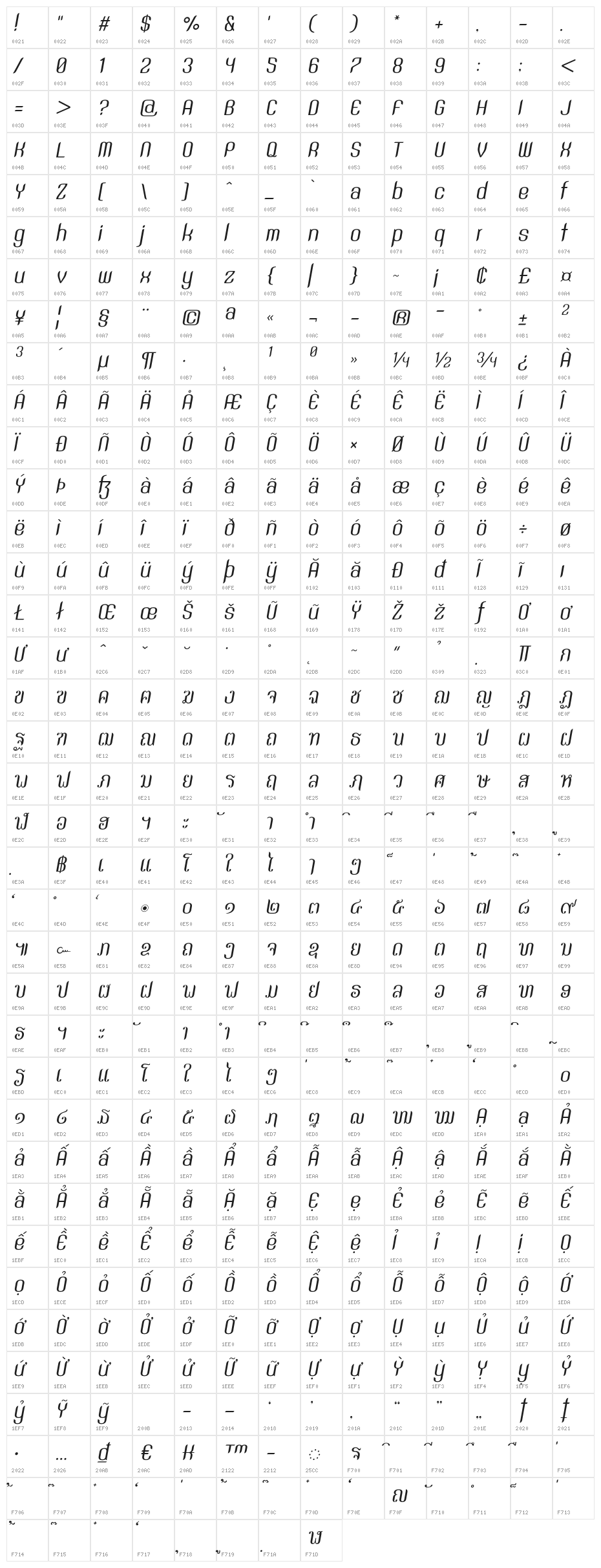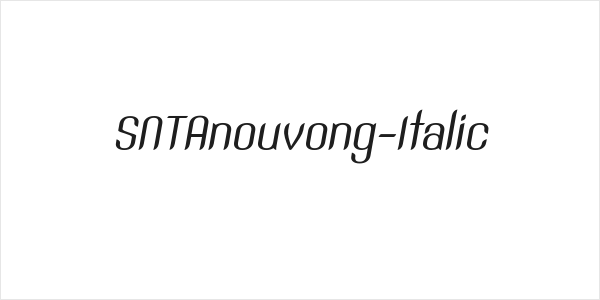
SNTAnouvong-Italic Font
SNTAnouvong-Italic Description
This font features a sleek and modern italic style with smooth curves and a slight slant, giving it a dynamic and elegant appearance. The characters are well-proportioned, with a consistent stroke width that adds to its readability. The uppercase letters are bold and confident, while the lowercase letters maintain a fluid and graceful form. Numbers are clear and distinct, making them easy to read. The special characters are stylishly integrated, maintaining the overall aesthetic. This font is versatile, suitable for both digital and print media.
| Use Case | Headlines, Logos, Editorial design |
| Proposed Projects | Ideal for branding, advertising, and editorial design projects. |